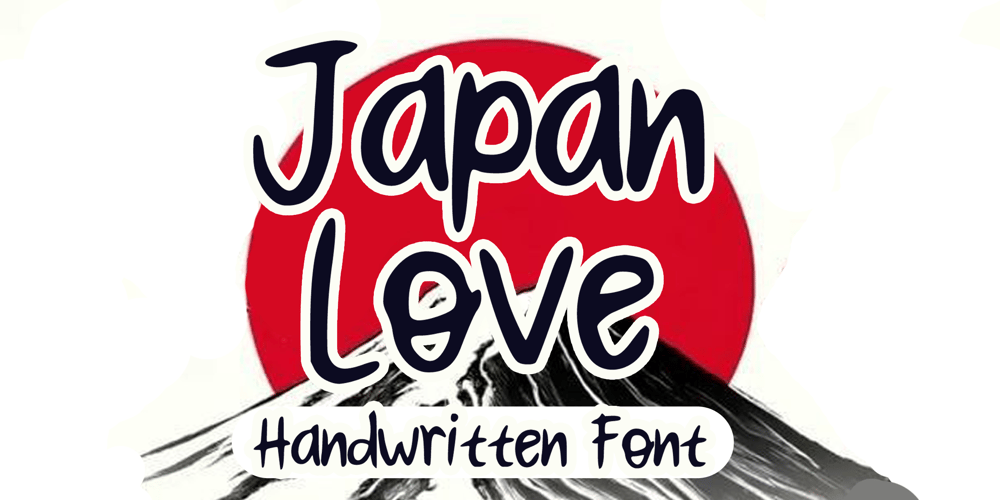
Japan Love Font Family was designed by Gabriel Valentinus and published by Mvmet. Japan Love contains 1 styles and family package options. Japan Love is a beautiful and versatile japanese, asian handwritten display brush font. You can use it for anything ranging from t-shirts, book designs, and greeting cards to stickers and posters, packaging designs, or anything that needs a casual touch, it will be your perfect font to pick. Fall in love with its incredibly versatile style, and use it to create lovely designs!